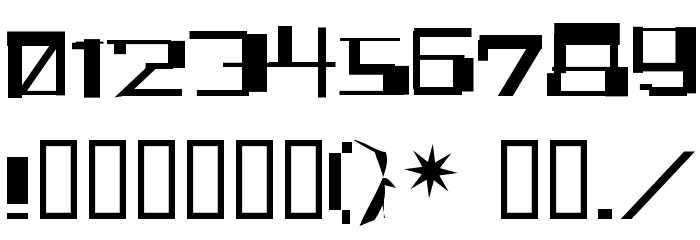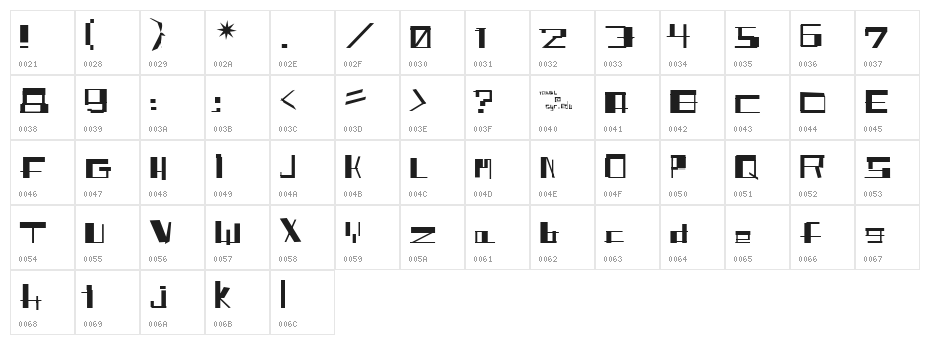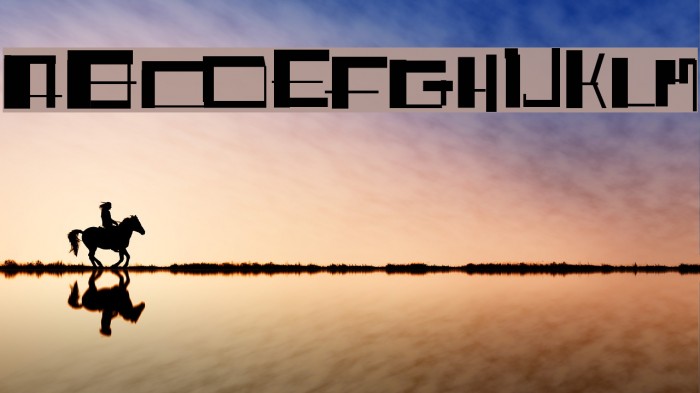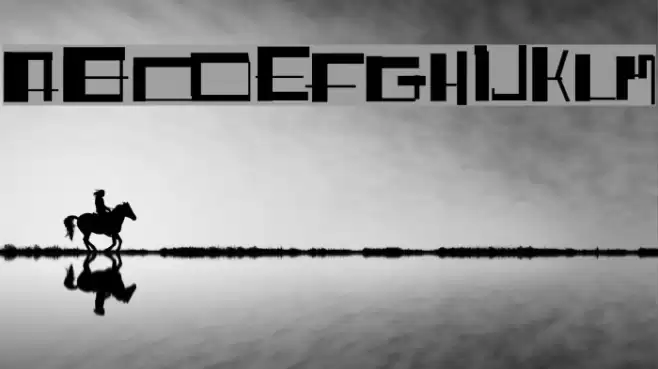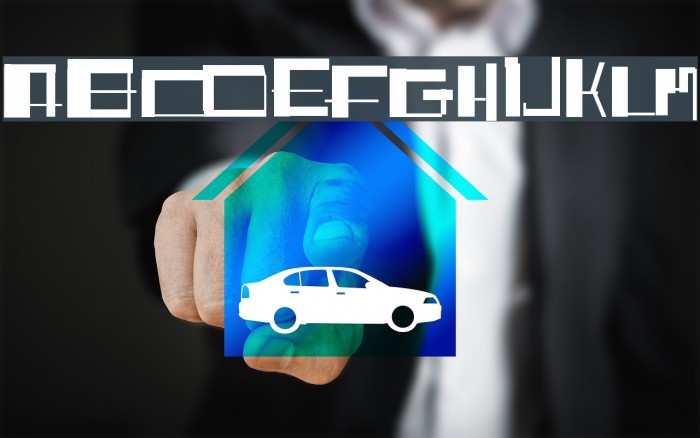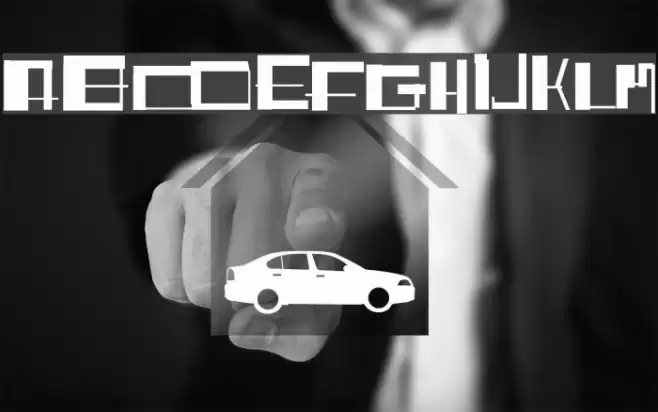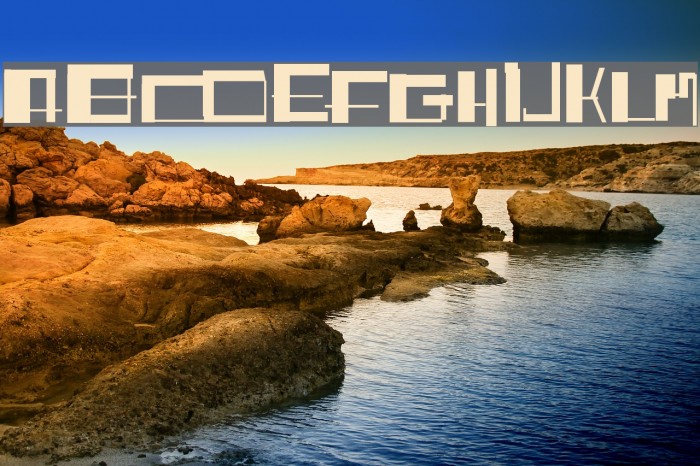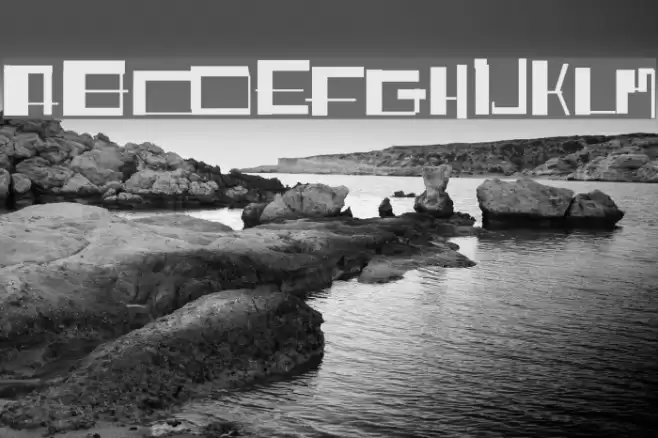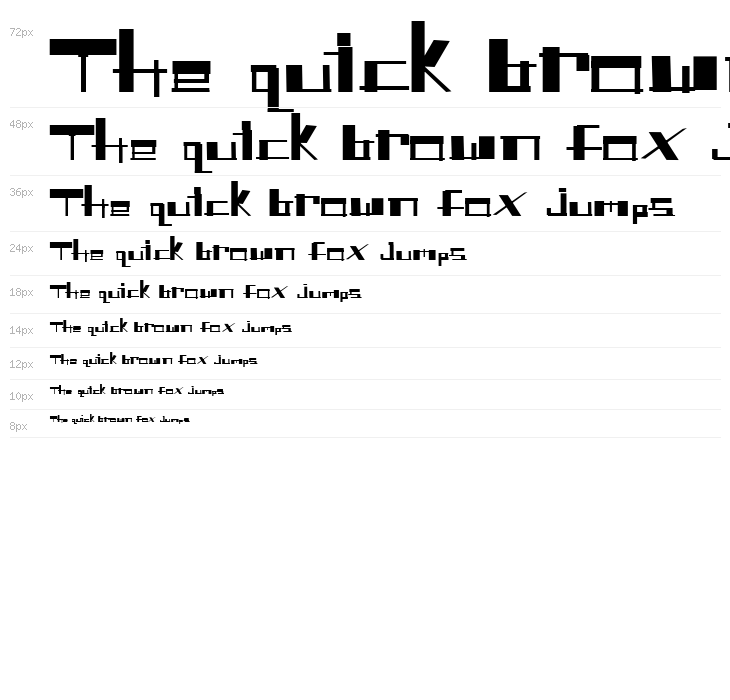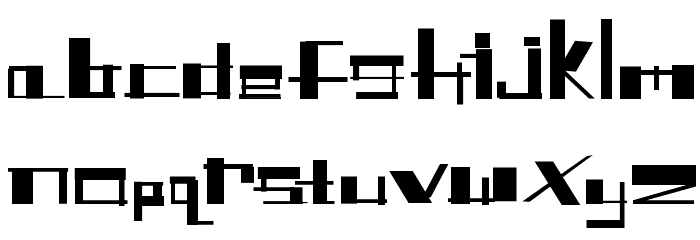
Shitfont Font
Shitfont Description
This font features a highly geometric and abstract design, characterized by sharp angles and a blocky appearance. Each character is constructed with a series of straight lines and right angles, creating a futuristic and digital aesthetic. The uppercase and lowercase letters maintain a consistent height, giving the font a uniform look. The numbers and special characters follow the same design principles, ensuring cohesion across all elements. This font's unique style makes it stand out, with its bold and striking presence that demands attention.
| Use Case | Logos, Posters, Digital Art |
| Proposed Projects | Ideal for digital art, video game design, tech branding, and futuristic posters. |